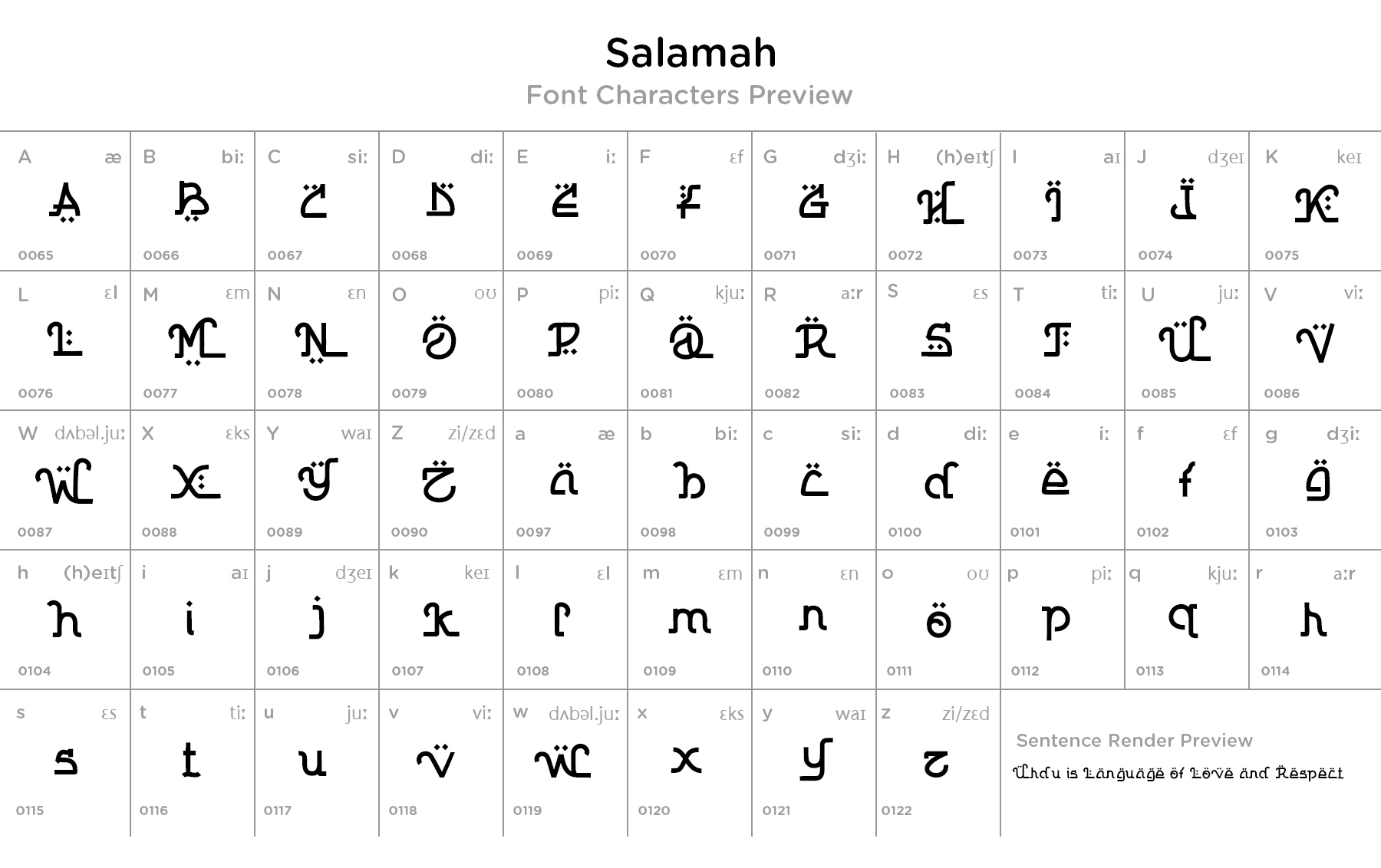
Salamah is a celebratory Latin-Islamic font often used to display religious content digitally. It is designed and published by zerologicstudio, a graphic designing font foundry in Indonesia. This modern Arabic face font has a large character set and a glyph count of 214, to write different languages easily. Moreover, it supports many different languages, including English, Greek, Italian, and more, across various design applications such as Adobe Photoshop, Illustrator, Filmora, and more. However, it is available only in one, resulting in its less usability.
Analyzing its design features, Salamah has a decorative appearance with letters widely spaced. Due to its spacious typesetting, it is highly readable in all sizes. Moreover, it has a normal thickness, so it can be used for large text blocks without making your content look hard to read. Although it’s a Latin font, it involves extra dots and dashes on letters that resemble Arabic scripting. Businesses use this font for branding their product, in business or greeting cards, or for their online marketing with engaging posts. Furthermore, it has long terminals that are slightly curled, and letter sizes, either small or capital, are of almost the same size, displaying uniformity in text.